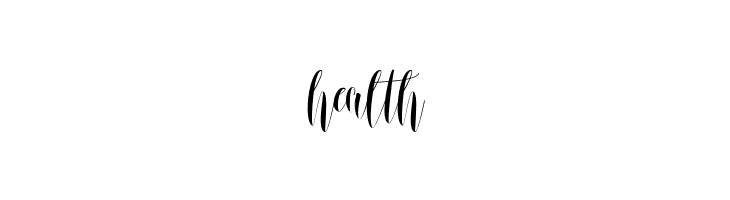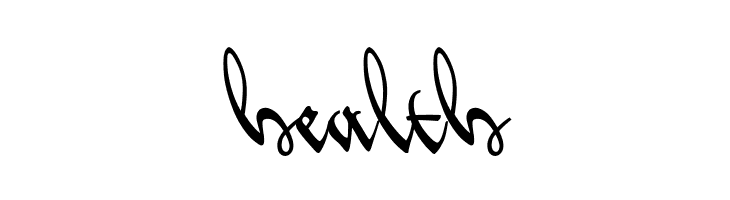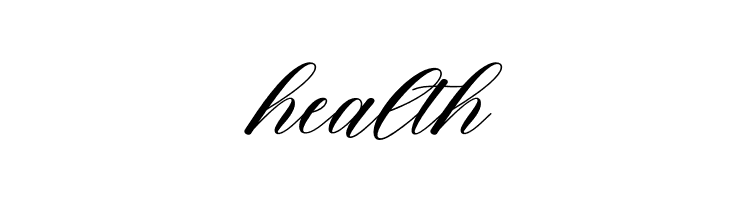
An elegant script font with flowing, interconnected characters and high contrast strokes.
An elegant, cursive script font with flowing, graceful curves.
A dynamic and flowing script font with smooth, cursive strokes.
An elegant and flowing script font with dramatic uppercase and harmonious lowercase letters.
An elegant, flowing script font with dramatic curves and sophisticated style.
An ornate and decorative script font with elaborate flourishes.
A playful, romantic cursive font with smooth curves and elegant flow.
A bold, brush-style font with expressive, hand-painted strokes.
A charming and elegant script font with fluid, connected letterforms.
A playful, handwritten font with smooth, flowing strokes and a casual vibe.